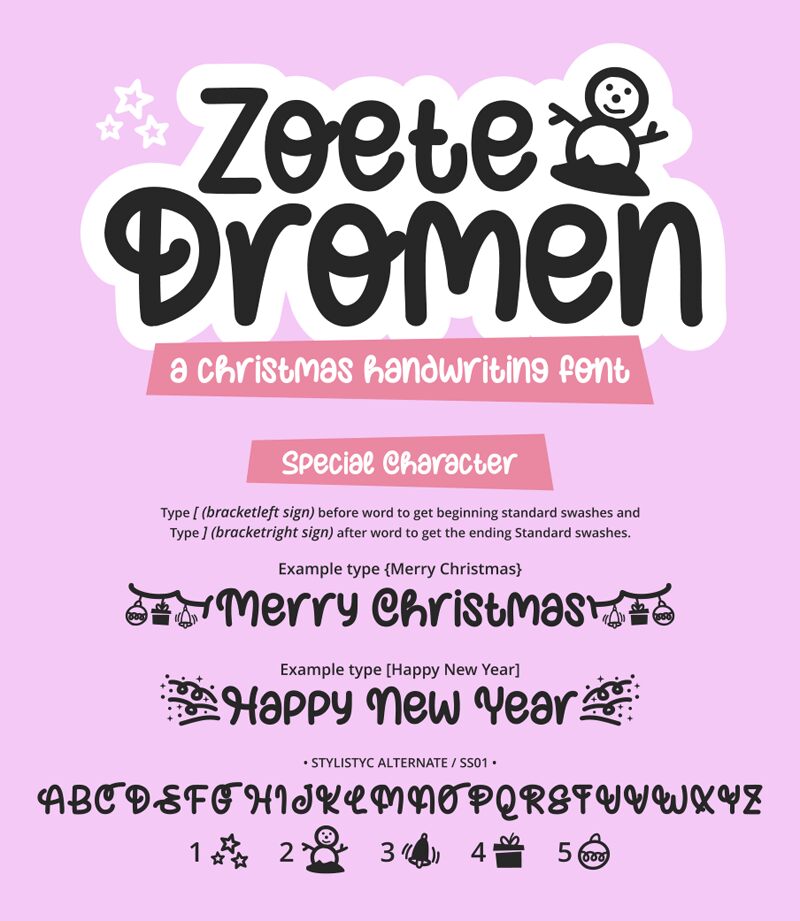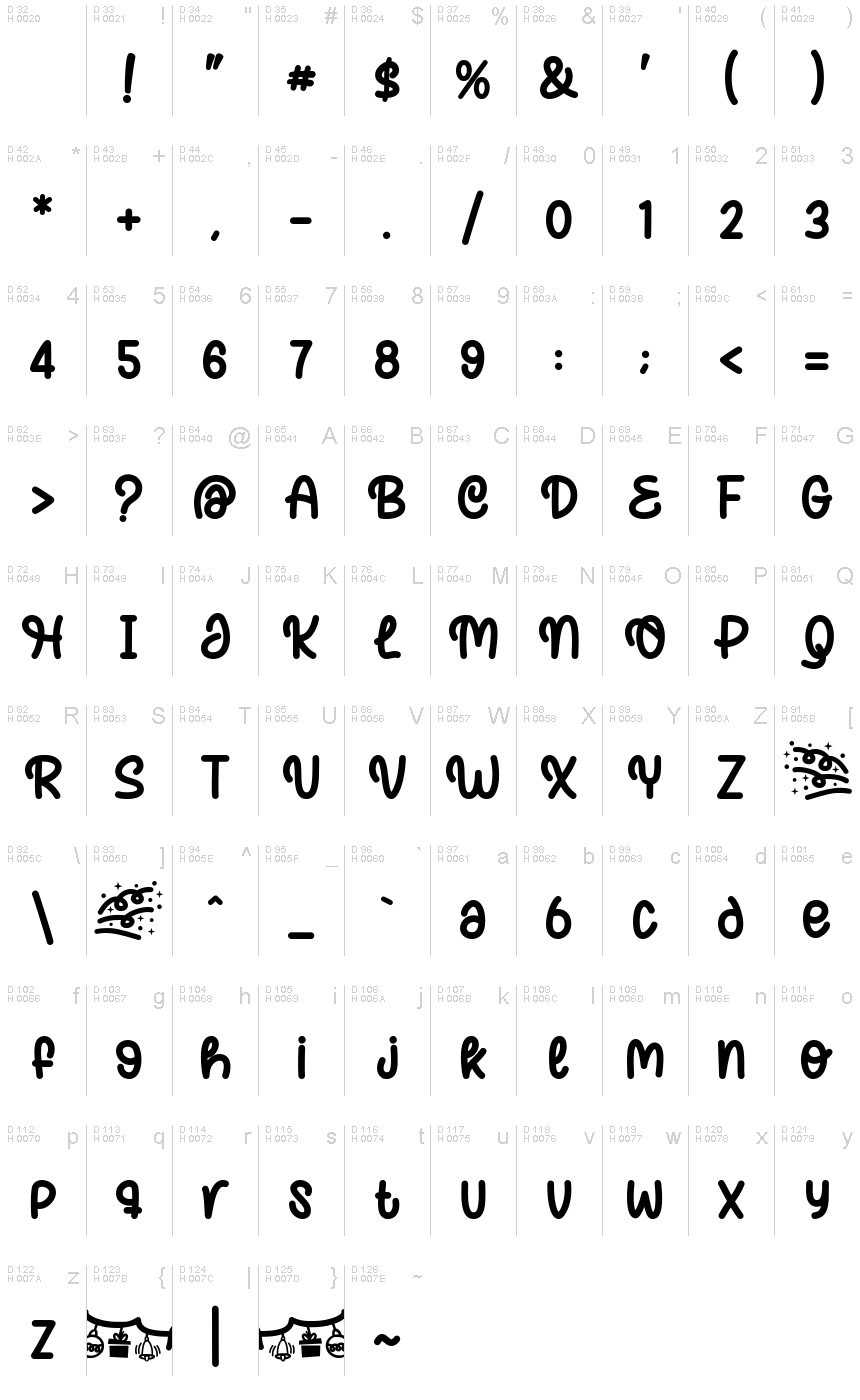
Zoete Dromen font from Mabhal Studio is a delightful display typeface that exudes whimsy and charm. Its playful, cartoonish style captivates with rounded edges and exaggerated features, creating an inviting vibe perfect for engaging audiences of all ages.
The font's substantial presence adds a sense of fun to any project, making it particularly effective in children's books, party invitations, or vibrant branding efforts. Zoete Dromen effortlessly draws attention while maintaining a lighthearted tone, making it ideal for various designs that aim to inspire joy and creativity. Whether used in headlines or promotional materials, this font serves as a cheerful companion that brings any concept to life with its unique character and aesthetic appeal.